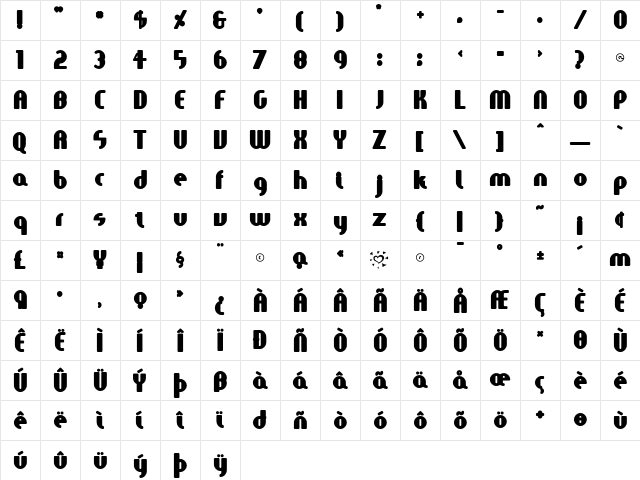
FastGirls CCup
| Style | CCup |
Design Context for FastGirls Typeface
FastGirls is a composed and adaptable typeface that performs quietly and consistently across a wide range of design contexts.